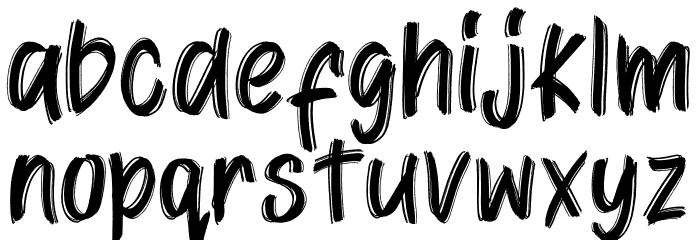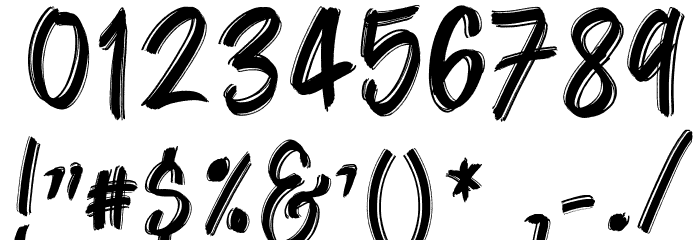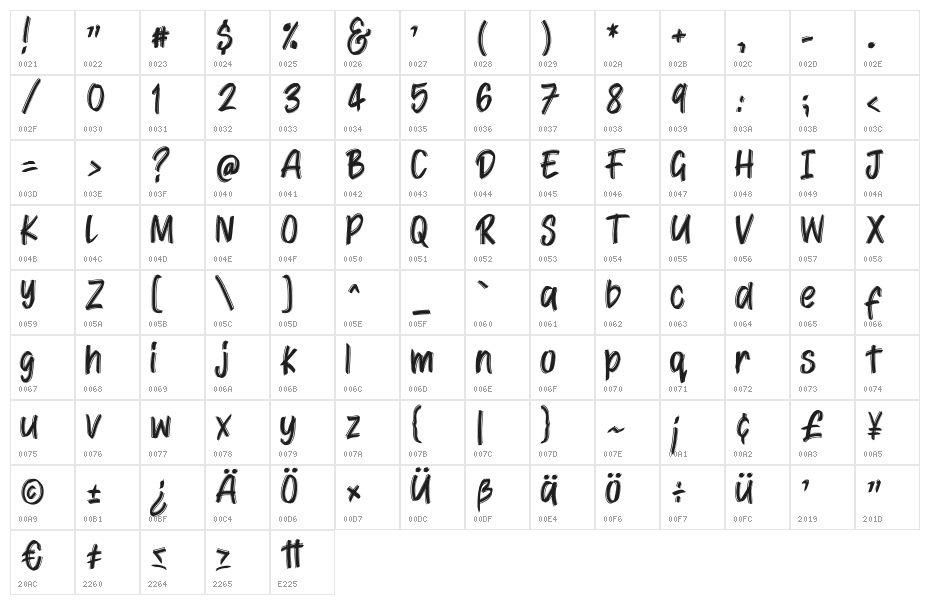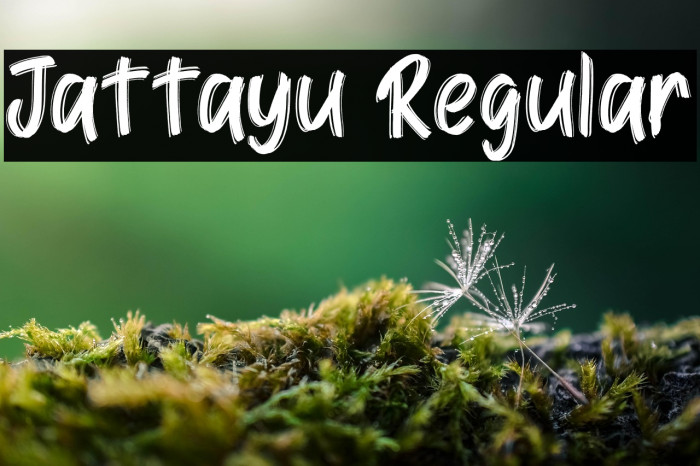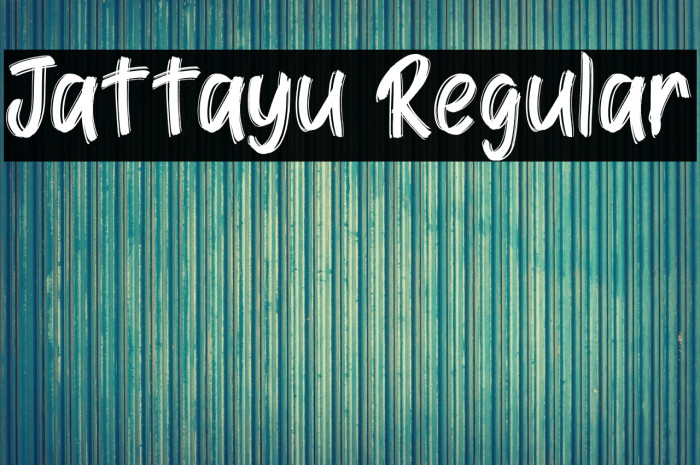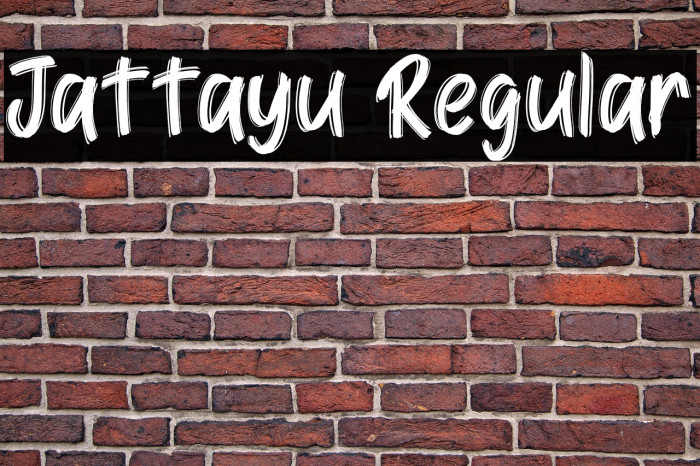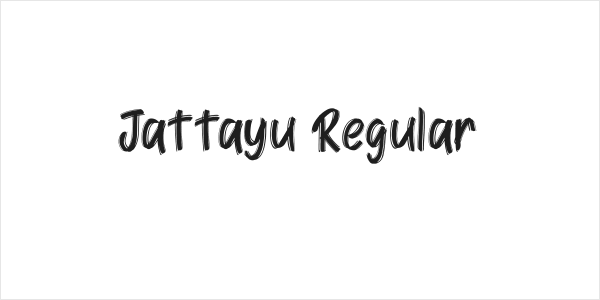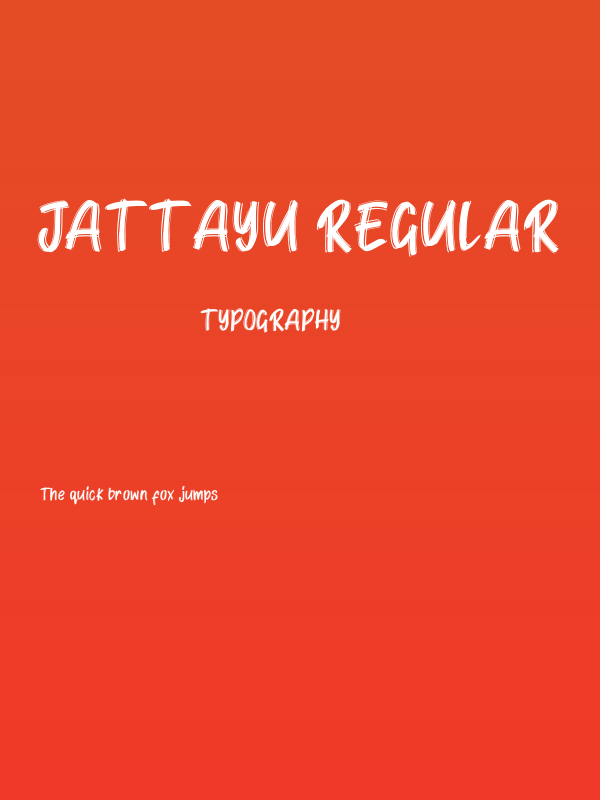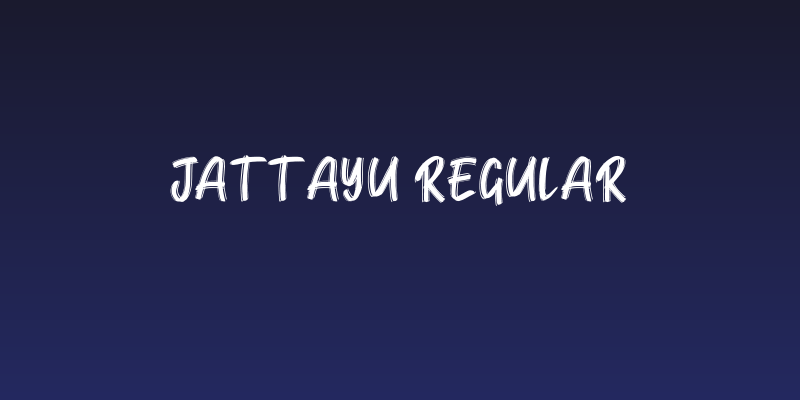
Jattayu Regular Font
This font features a bold, expressive style with a hand-drawn appearance. The strokes are thick and dynamic, giving it a lively and energetic feel. Each character has a unique, slightly irregular shape, adding to its handcrafted aesthetic. The uppercase and lowercase letters are well-balanced, and the numbers and special characters maintain the same artistic flair. The overall look is playful yet impactful, making it suitable for creative and informal designs.
A bold, hand-drawn font with an energetic and playful style.
- Font: Jattayu Regular
- Proposed Projects: Ideal for posters, branding, social media graphics, and any project requiring a lively and artistic touch.